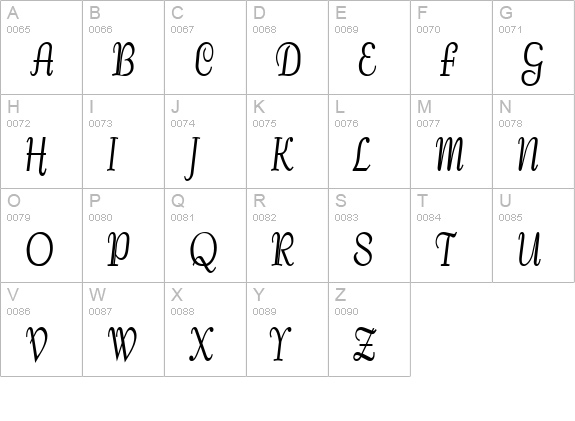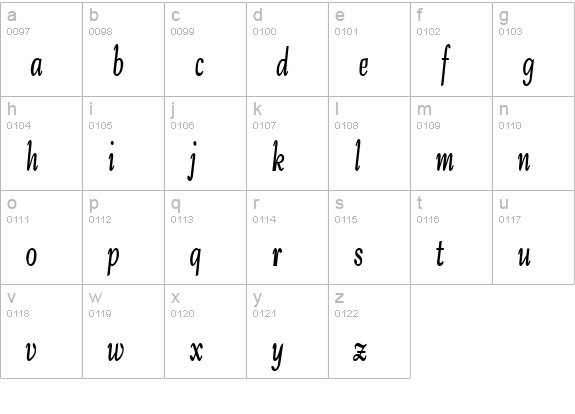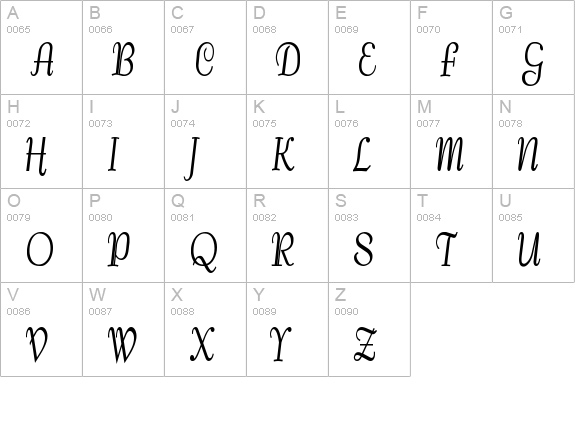
Tango Condensed Bold Font Details
Tango Condensed Bold is a strong, high-contrast, condensed-width variant in the Tango typeface family \xE2\x80\x94 well suited to headlines, attention-grabbing titles, and strong calls-to-action.
Introducing Tango Condensed Bold, a font that exudes boldness and sophistication in every curve and stroke. This condensed typeface is perfect for adding a touch of elegance and professionalism to any design project. With its sleek and slender letterforms, Tango Condensed Bold commands attention and makes a statement. It boasts a sense of modernity and confidence, making it ideal for headlines, logos, and branding materials. Its strong presence on the page ensures that your message will be delivered with impact and clarity. But what sets Tango Condensed Bold apart is not just its aesthetic appeal—it is also freely available to download at FontsMarket.com. That's right, you can access this exceptional typeface without any cost, allowing you to enhance your designs without breaking the bank. Whether you are a professional graphic designer or a hobbyist looking to elevate your projects, Tango Condensed Bold is the perfect companion. Its versatility and distinctive style make it suitable for a wide range of applications, including advertisements, packaging, posters, and more. Download Tango Condensed Bold today and experience the freedom to create stunning designs that captivate and inspire. Don't miss out on this opportunity to add a touch of class and sophistication to your typography. Visit FontsMarket.com now and unlock the endless possibilities that Tango Condensed Bold offers.